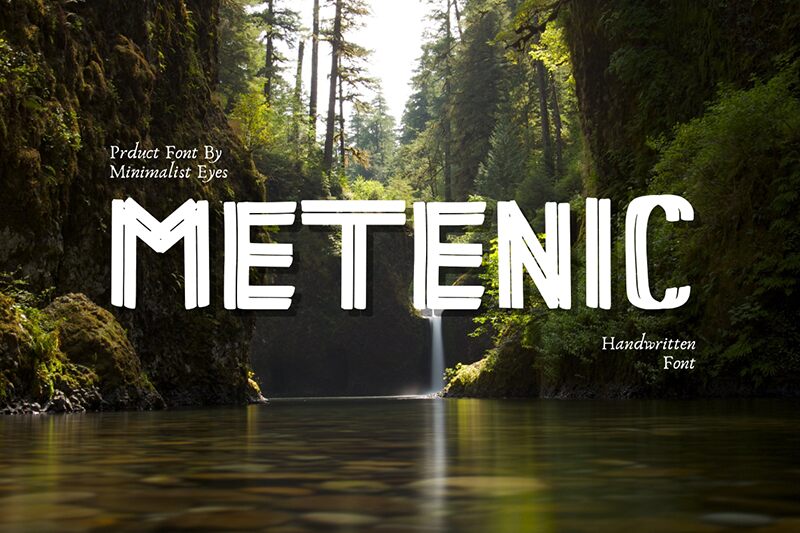
Metenic font is a free, bold display font crafted by Muhammad Afif of Minimalist Eyes. Its structured and geometric style gives it a modern industrial look that’s powerful and futuristic at the same time. With no wasted lines or elements, Metenic truly stays true to its utilitarian mantra with clean balanced letters. It perfectly encompasses power in design as a wide modern display type that turns heads no matter how its used.
Use this free display font for posters, flyers, branding projects, advertisements, business cards, web design banners, delivery service vehicles role-outs and decorative print designs. A Metenix logo or header really attracts attention to the brand thanks to its powerful build!